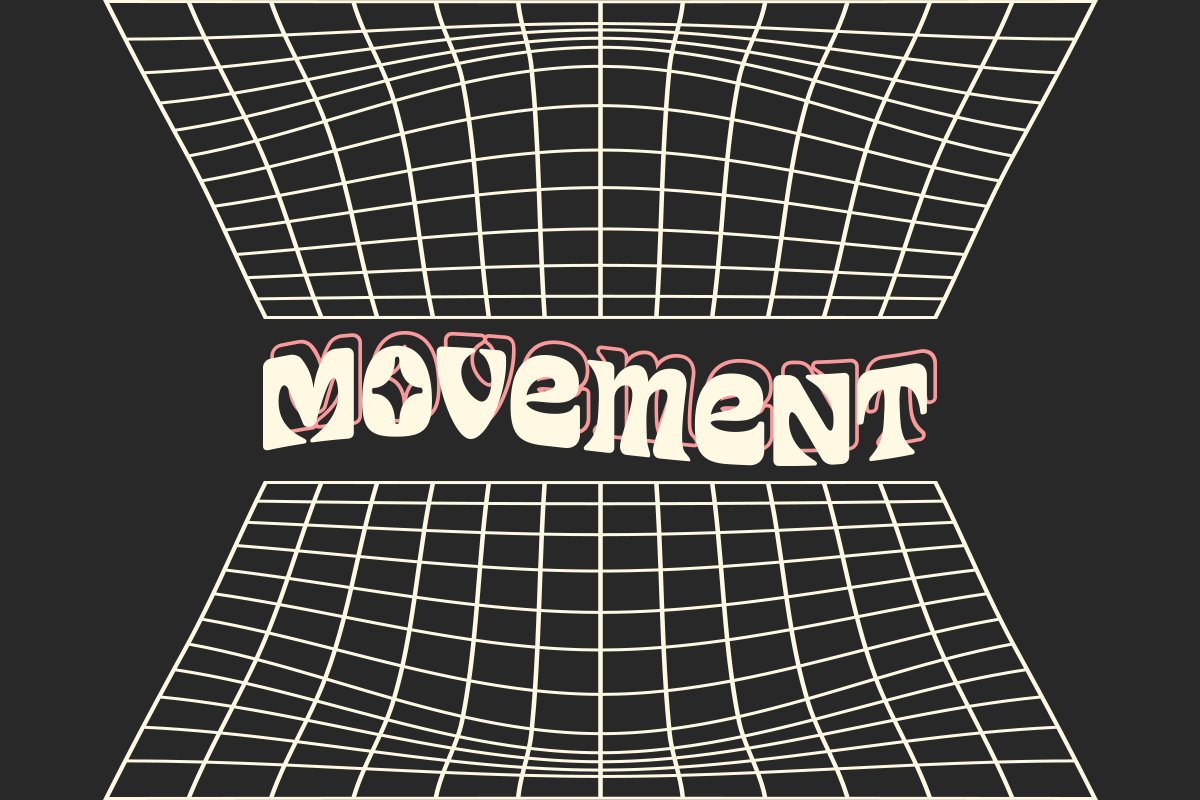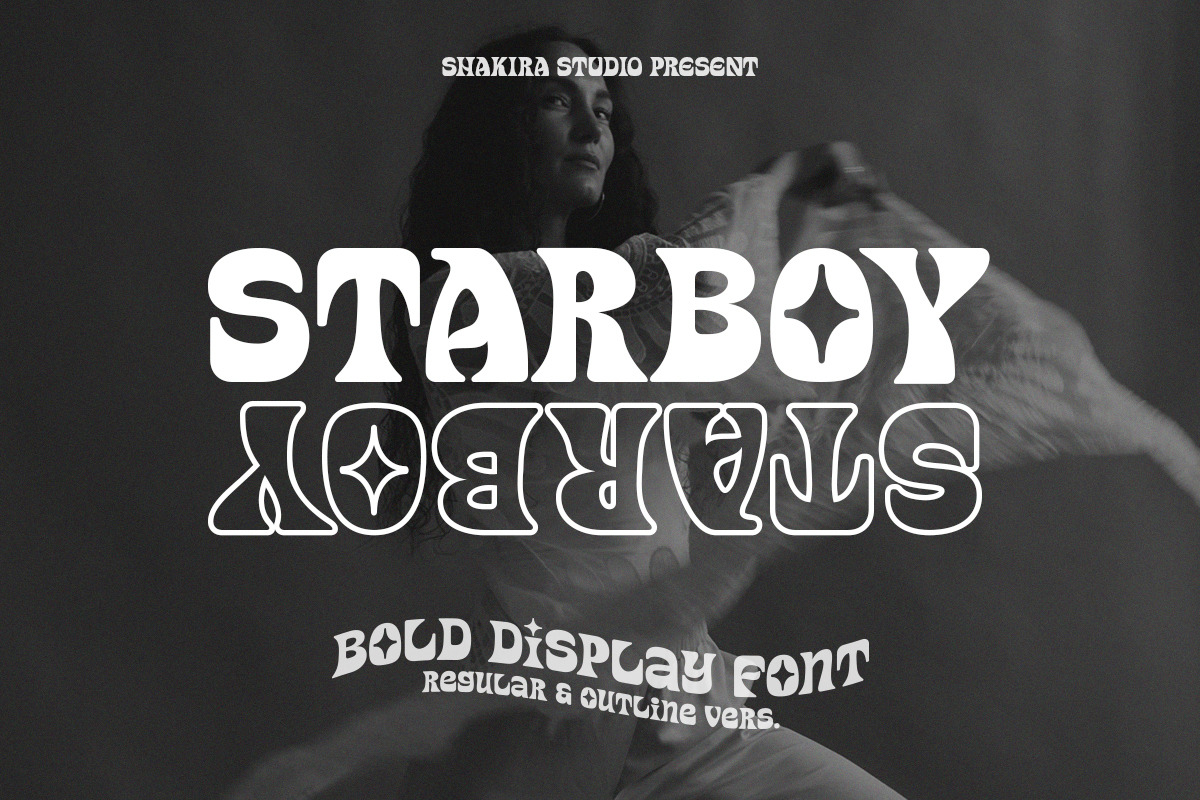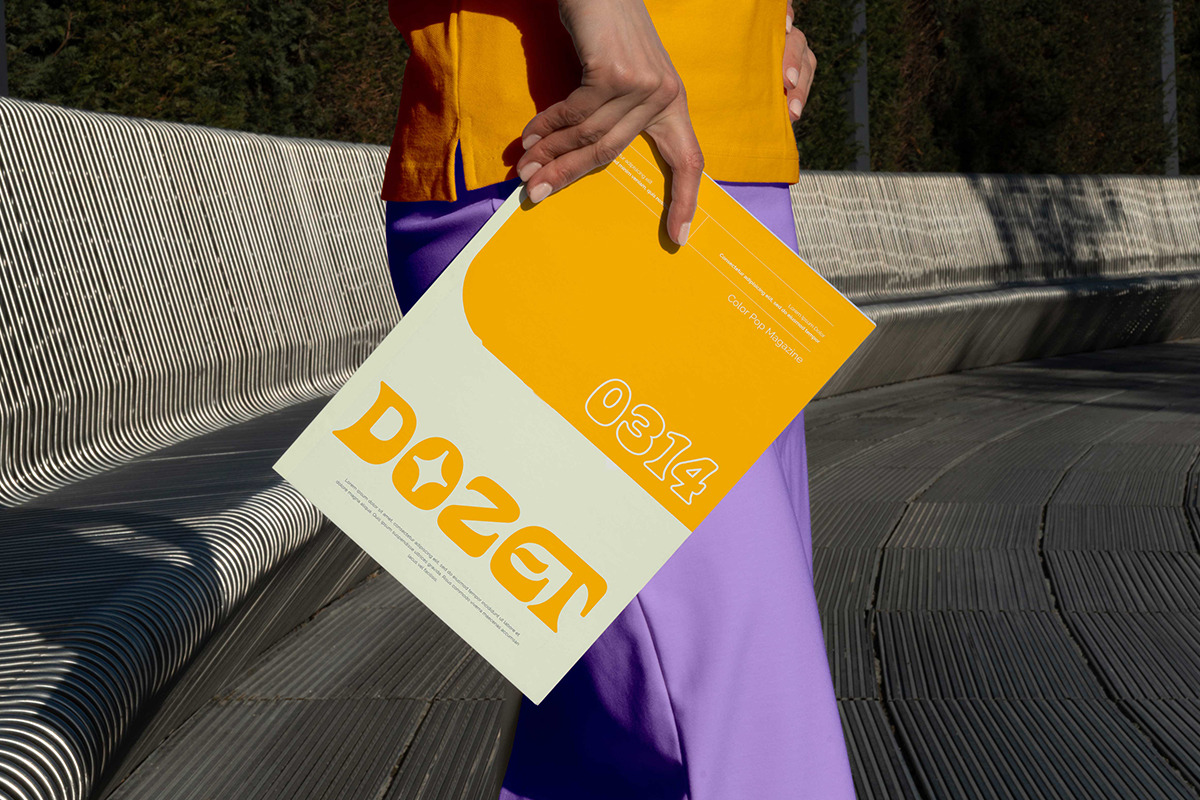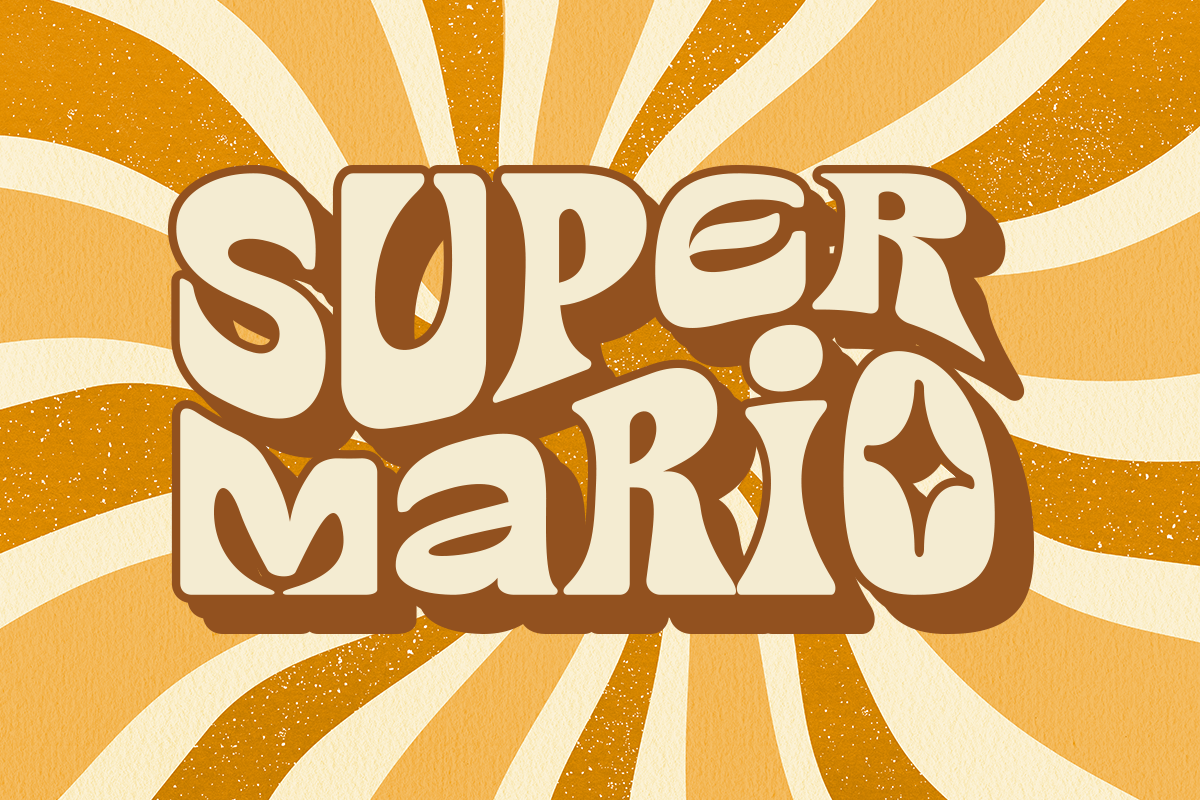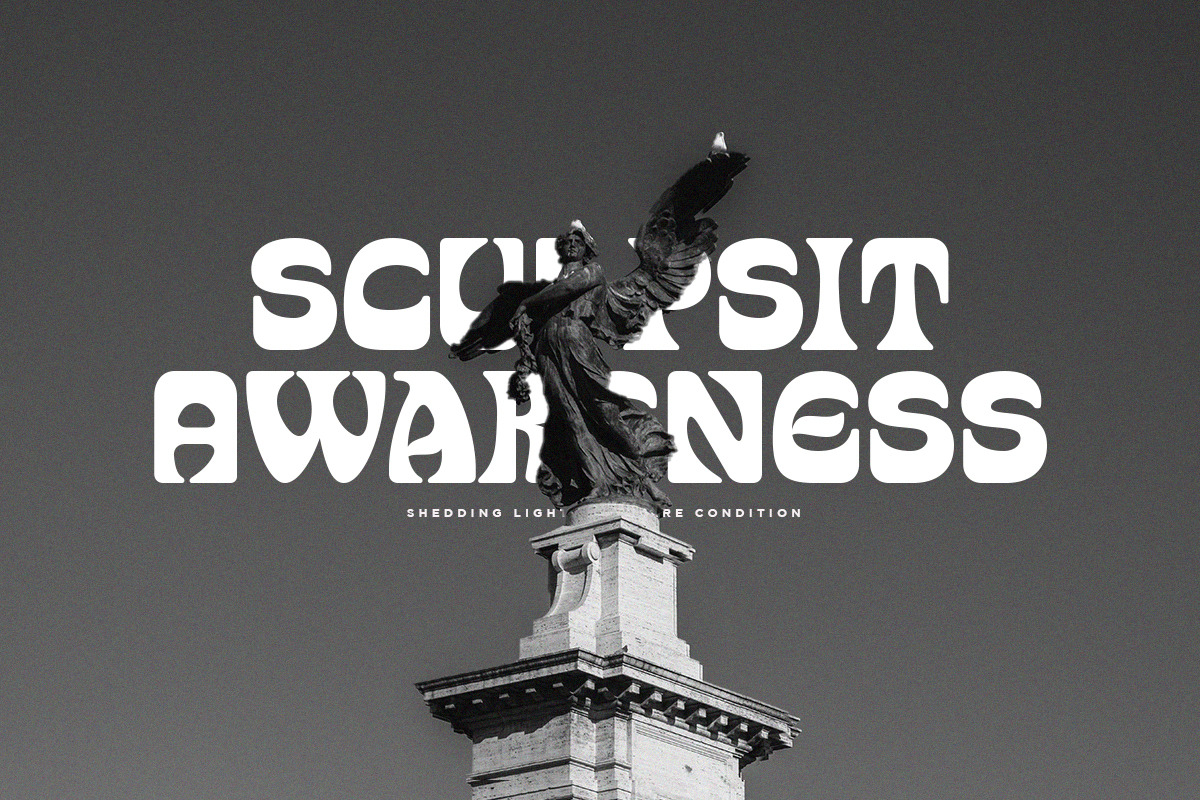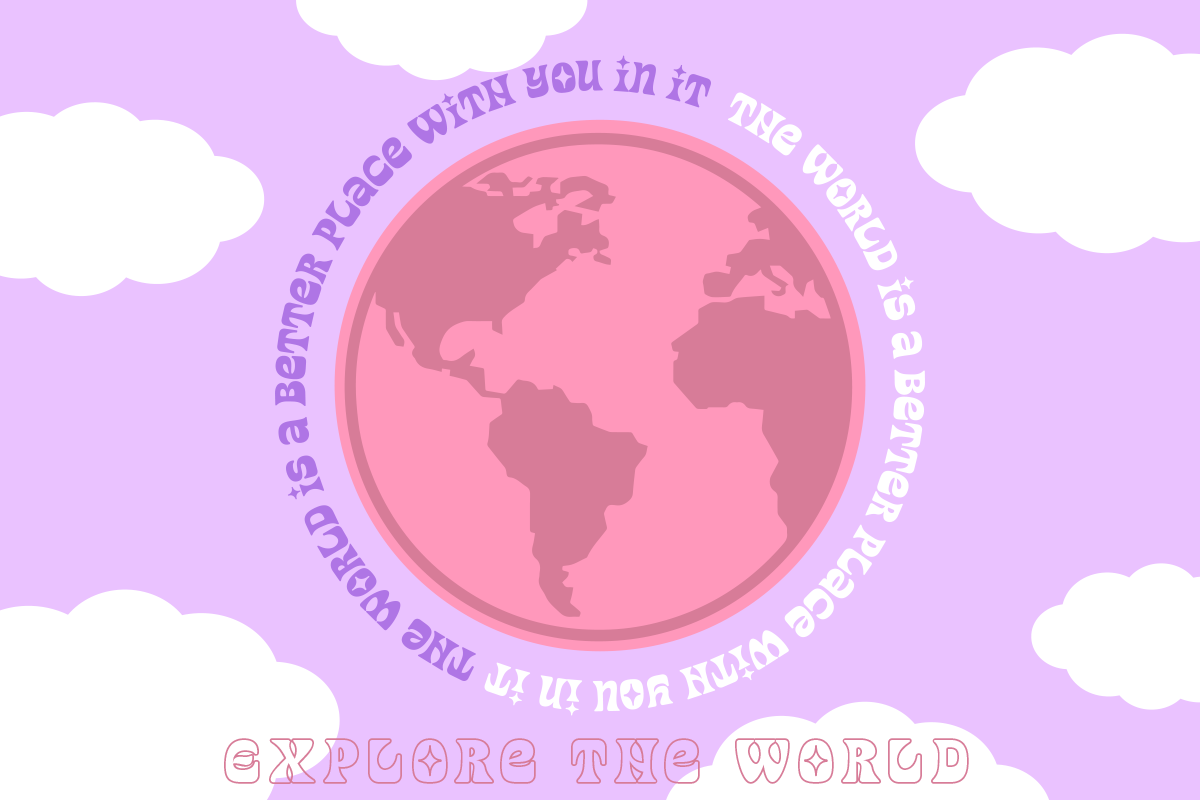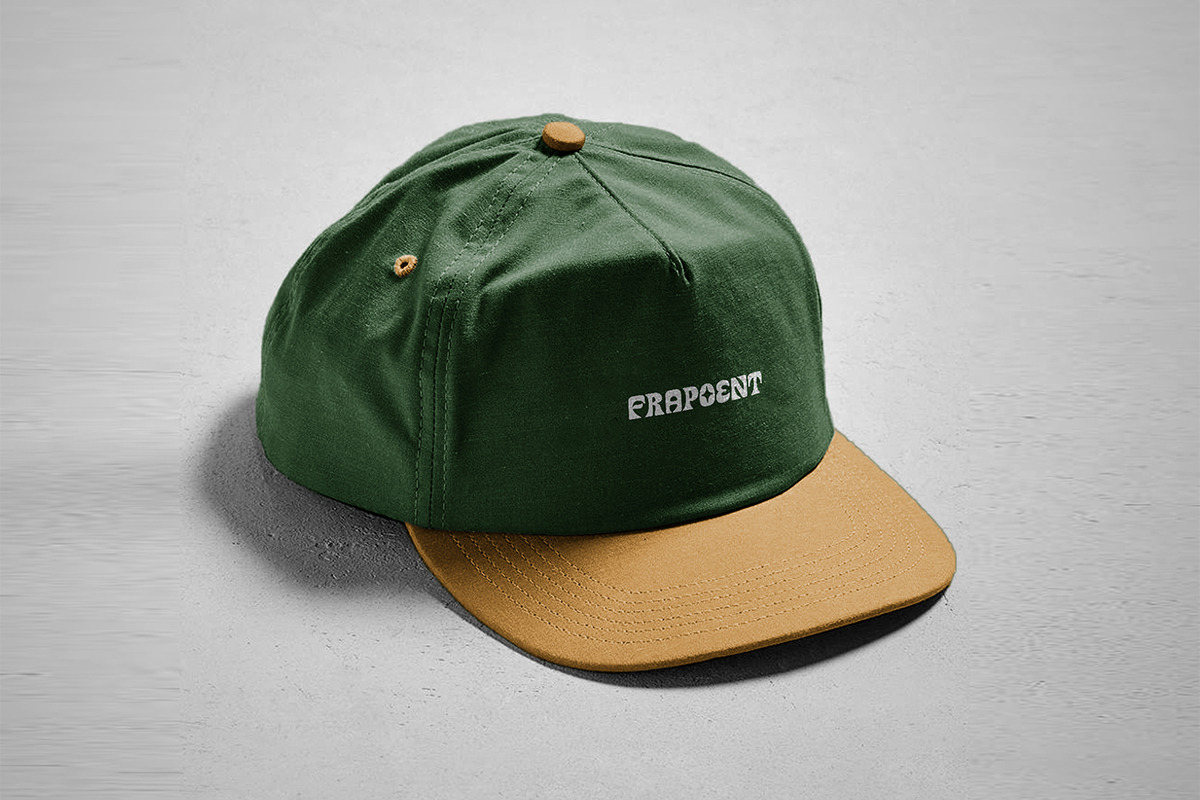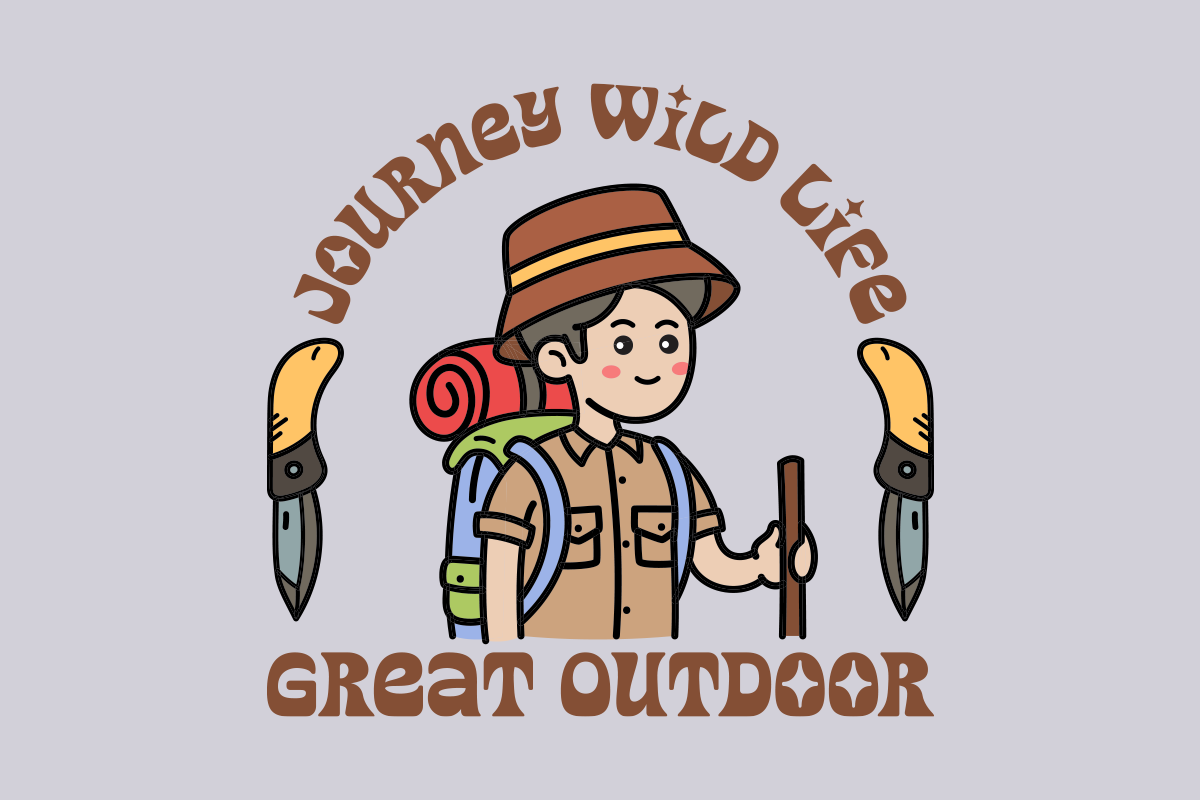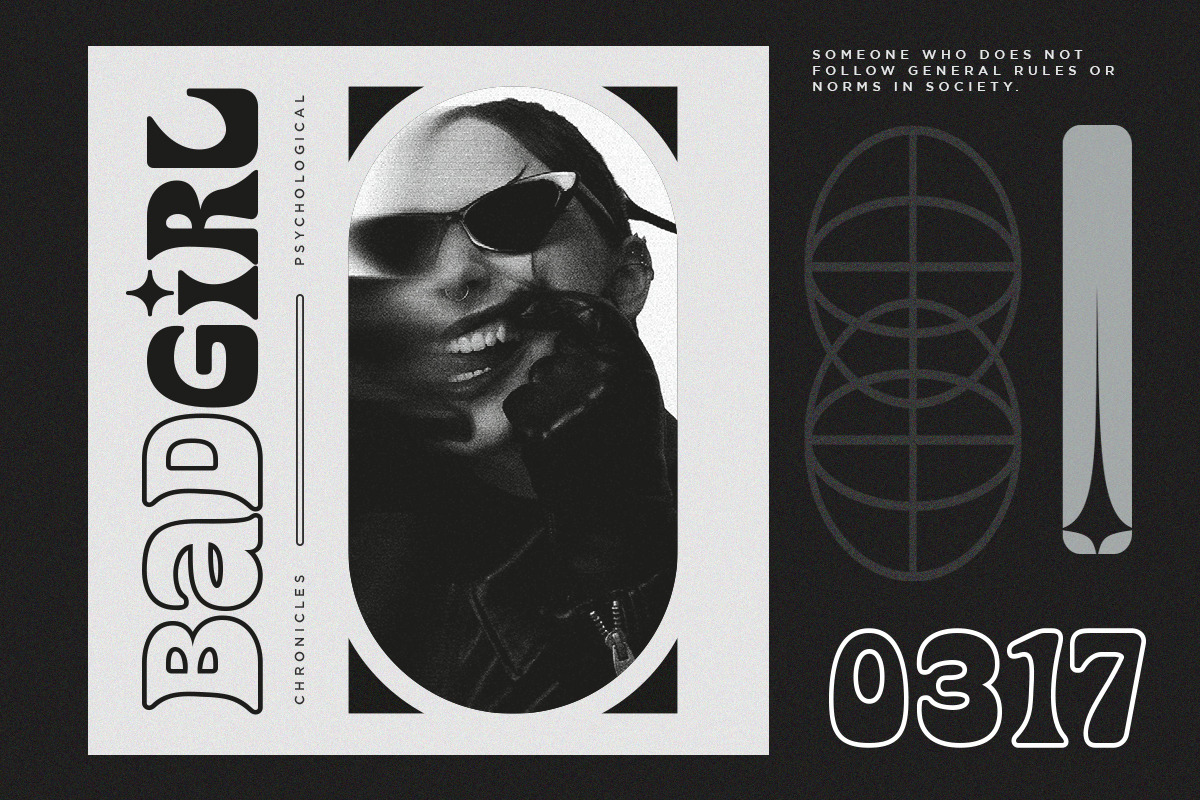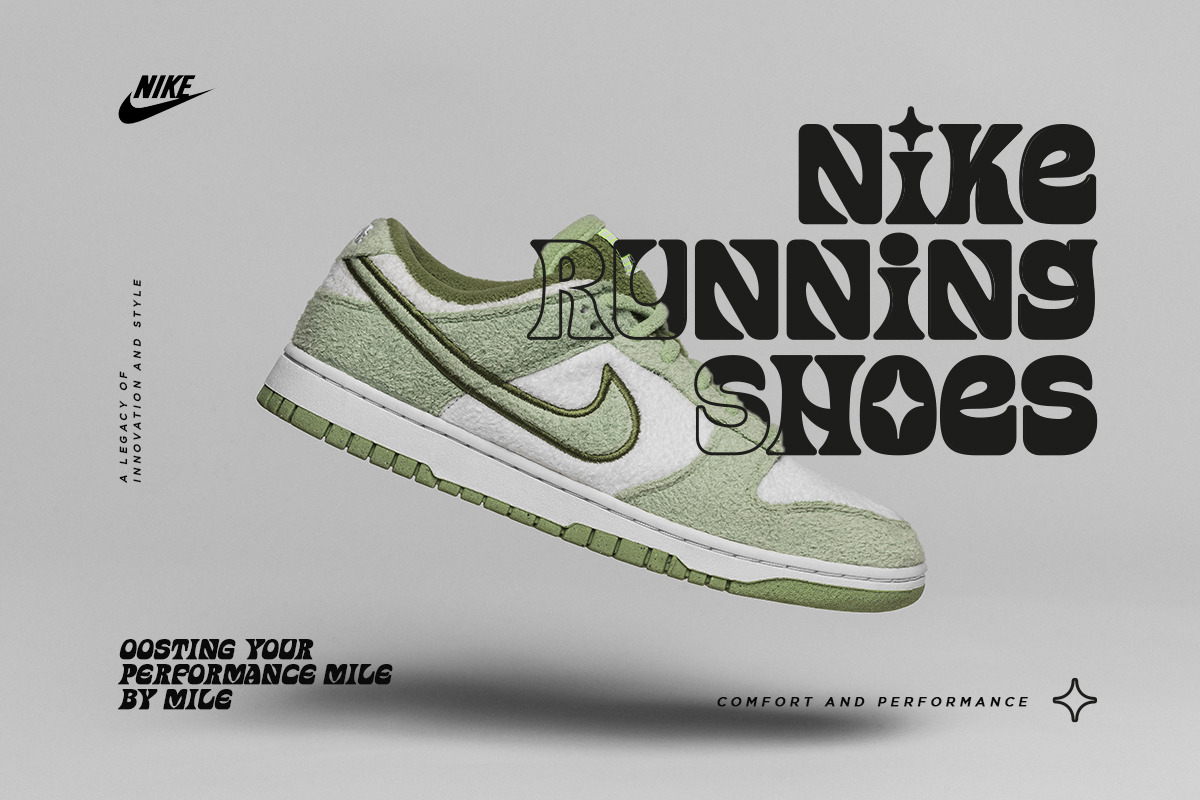
Starboy - Bold Display Font
Introducing Starboy - The Hottest Bold Serif Display Font of the Moment!
Starboy is here to redefine your design game with a boldness that's right on-trend. This dynamic font duo features both a regular and outline version, making it the ultimate choice for designers who want to stay ahead of the curve in today's design scene.
The regular version of Starboy is a powerhouse of bold serifs and stylish sophistication, perfect for creating designs that make a bold statement. The outline version takes this to the next level, adding an extra layer of modernity and versatility to your projects.
In a design world that's constantly evolving, Starboy stands out as the go-to font for capturing attention and creating memorable visuals. Whether you're working on cutting-edge branding, striking headlines, or contemporary packaging, Starboy's duo of fonts ensures your work aligns with the latest design trends.